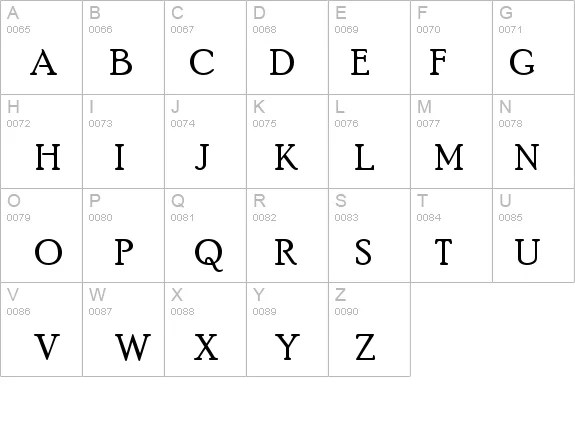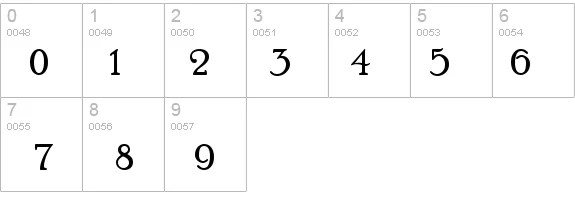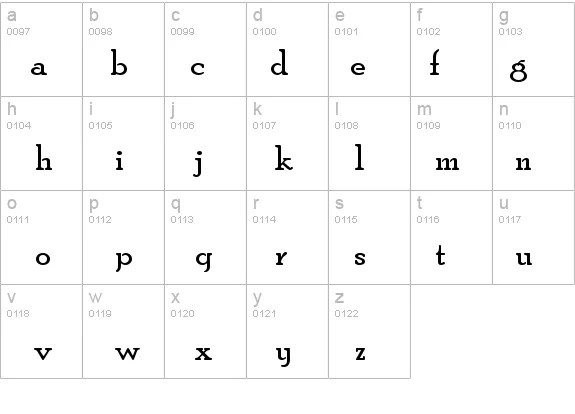
About The Font Poor Richard.
You Can Use The Poor Richard To Create Interesting Designs, Covers, Shop And Store Name And Logos.
It Belongs To The Serif Typeface Family That Consisting Various Variants And 3 Weights Including Regular, Bold, And Italic, Designed And Shared By Optifont.